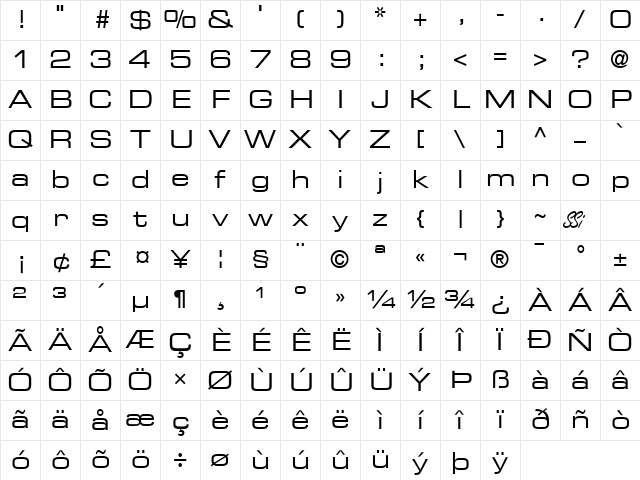
Palindrome Expanded SSi Expanded
Design Context for Palindrome Expanded SSi
Palindrome Expanded SSi is a composed and adaptable typeface that performs quietly and consistently across a wide range of design contexts.